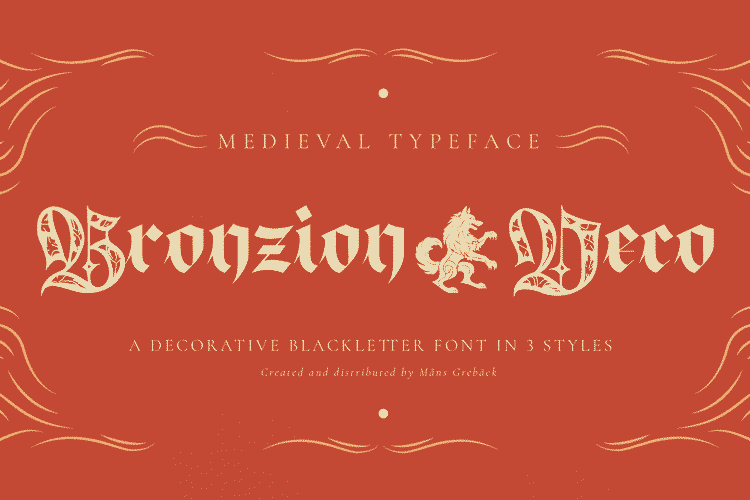
Bronzion Deco Font
Bronzion Deco is an illuminated blackletter typeface rooted in medieval aesthetics.
Use characters 🌲🌳🎠🐂🐅🐆🐈🐉🐎🐕🐦🐯🐲🐺👑👸🗡🤴🦁🦅🦇🦌🦎🦓🦖 to create heraldry-like logos and symbols.
Example: Magic🐉Empire